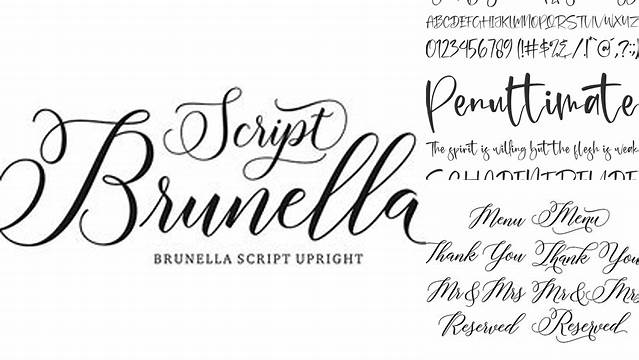
Brunella Script Regular Font Free Download: A Complete Guide
Hey there, design enthusiasts! Ever stumbled upon a font that just screams elegance and personality? Well, Brunella Script Regular is definitely one of those gems! In this article, we're diving deep into the world of this stunning font, offering you a free download and a treasure trove of info to get you started. From its design quirks to how you can use it in your projects, we've got you covered. So, buckle up, and let's explore the beauty of Brunella Script!
What Makes Brunella Script Regular So Special?
Alright, so what's the big deal about Brunella Script Regular? Well, first off, it's a script font, which means it's designed to mimic handwriting. But not just any handwriting – we're talking about a beautifully crafted, flowing style that's both classic and contemporary. Think of it as the perfect blend of vintage charm and modern sophistication. It's got that lovely, handwritten feel that adds a touch of personality to any design, while still being incredibly legible and versatile. The curves are smooth, the connections are graceful, and the overall aesthetic is simply delightful. Brunella Script Regular isn't just a font; it's a statement. It's a way to infuse your projects with a sense of warmth, creativity, and uniqueness. Whether you're designing a wedding invitation, a logo, or a social media post, this font can make a huge difference. It instantly elevates your design, giving it a touch of elegance that's hard to ignore. So, if you're looking to add a touch of class and flair to your work, Brunella Script Regular is definitely a font to consider. It's the kind of font that makes people stop and take notice, leaving a lasting impression. It's a testament to the power of good typography and how it can transform your designs from ordinary to extraordinary. Its appeal lies in its versatility. It can adapt to various design scenarios, whether you're going for a formal or a more casual look. The font's inherent beauty and its adaptability make it a favorite among designers. The carefully crafted details of each letter ensure that the text not only looks good but also reads well. So, if you're a designer looking for a font that can do it all, Brunella Script Regular is worth a download.
One of the most striking features of Brunella Script Regular is its incredible legibility. Script fonts can sometimes be tricky to read, but this one is designed to be both beautiful and functional. The letterforms are carefully crafted to ensure that each character is easily distinguishable, even at smaller sizes. This means you can use the font in a variety of applications without worrying about readability issues. This makes it ideal for various projects, from headlines to body text. Its flowing strokes and elegant curves give it a unique look that is both eye-catching and easy to read. The balance between style and readability is what truly sets Brunella Script Regular apart from other fonts. It's a testament to the skill and artistry of the font designer. They have successfully created a script font that is both visually appealing and practical, making it an excellent choice for a wide range of design projects. So, if you're looking for a font that can enhance your designs while maintaining readability, Brunella Script Regular is an excellent option. It offers a perfect blend of style and functionality, ensuring that your message is conveyed effectively. This is why it is such a popular choice for designers looking to create visually stunning and user-friendly designs.
How to Use Brunella Script Regular in Your Designs
Alright, you've downloaded Brunella Script Regular, and now you're wondering how to put it to good use. Here's the lowdown on incorporating this font into your designs like a pro. First things first, think about the context. Where are you using the font? Is it for a headline, a logo, or body text? Brunella Script Regular shines best in display settings, such as headlines, titles, and invitations. Its elegant curves and flowing strokes really make an impact in these larger sizes. When using it for body text, be mindful of the length and readability. While beautiful, script fonts can sometimes be challenging to read in long paragraphs. If you're using it for longer text blocks, make sure to use a larger font size and consider adjusting the letter spacing for improved readability. Brunella Script Regular can create a unique and eye-catching design. It's perfect for adding a touch of sophistication. Whether you are designing a logo, creating invitations, or crafting social media graphics, this versatile font can be adapted to your specific needs. For logos, Brunella Script Regular is a fantastic choice, especially for brands that want to convey a sense of elegance and charm. Its graceful strokes and distinctive style will make your brand stand out. In your design software, you can experiment with different colors, sizes, and effects to see how the font looks in various contexts. This will help you determine the best way to integrate it into your project. You can also pair it with other fonts to create a balanced and visually appealing design. Choose a complementary sans-serif or serif font for body text to create a contrast that enhances readability. The key is to find the perfect balance between the script font and the other elements in your design. Creating visually stunning designs. The use of this font in various contexts will bring out a unique and eye-catching style. Its adaptability allows it to create a consistent brand image. Combining this font with other elements will add a creative look.
When it comes to color, Brunella Script Regular is versatile. It looks great in both light and dark colors. Consider the overall aesthetic of your design and choose colors that complement the font and the message you're trying to convey. Another tip is to play with the font's features, such as ligatures and alternative characters, if available. Ligatures are special characters that combine two or more letters for a smoother flow, while alternative characters offer different variations of certain letters. These features can add extra flair and personality to your text. Remember, the best way to master using Brunella Script Regular is to experiment. Try it out in different contexts, play with different combinations, and see what works best for you. Don't be afraid to explore and be creative! With a little practice, you'll be able to use this font to create stunning designs that capture your audience's attention.
Design Ideas and Inspiration for Brunella Script Regular
Need some inspiration? Let's explore some creative ways to use Brunella Script Regular in your designs. First off, consider using it for wedding invitations and stationery. The elegant script style is a perfect fit for creating a romantic and sophisticated look. Use it for the names of the couple, the date, and other important details. You can pair it with a classic serif font for the body text to create a balanced and visually appealing design. Think of creating stunning invitations with a touch of elegance. The elegant script style of Brunella is perfect for conveying a romantic and sophisticated atmosphere. For logos, Brunella Script Regular is an excellent choice for brands that want to create a sense of elegance and charm. This font is a good choice for fashion, beauty, and event planning. The flowing strokes and distinctive style will make your brand stand out and create a memorable impression. Combine it with clean, modern elements to create a logo that feels both timeless and contemporary. The font adds a unique touch of class. It is a perfect choice for fashion, beauty, and event planning. The font is very memorable. For social media graphics, Brunella Script Regular can be used to create visually appealing posts and stories. Use it for quotes, captions, and other text elements that need to stand out. Create eye-catching designs that grab your audience's attention and boost engagement. The font is versatile, making your designs memorable. It's perfect for making a statement. You can also use this font for creating beautiful quotes. This is an excellent way to add a touch of elegance to your designs. The font is a perfect choice for adding personality and charm to your work. The combination of this font and the images is a great way to create social media posts. Try incorporating Brunella Script Regular into your website design. Use it for headings, titles, and other prominent text elements to create a visually appealing layout. It can add a touch of sophistication and personality to your website, making it more engaging for visitors. For other projects, such as greeting cards, posters, and packaging, Brunella Script Regular can also be used to create a unique and personalized look. The font is also good for these projects. It is suitable for a variety of other applications. Experiment with the font and see what works best for you. You'll be amazed at the creative possibilities that this font unlocks. Don't hesitate to explore and find ways to incorporate Brunella Script Regular into your work! The goal is to create something amazing.
Brunella Script Regular: The Perfect Font for Your Next Project!
So, there you have it! Everything you need to know about Brunella Script Regular – from free download sources to how to use it in your designs. This font is a fantastic choice if you want to add a touch of elegance and personality to your projects. Remember to always double-check the licensing terms and experiment with different applications to find the perfect fit. We hope this guide has been helpful, and we can't wait to see the amazing designs you create with Brunella Script Regular! Get out there and create something beautiful, guys! Happy designing!